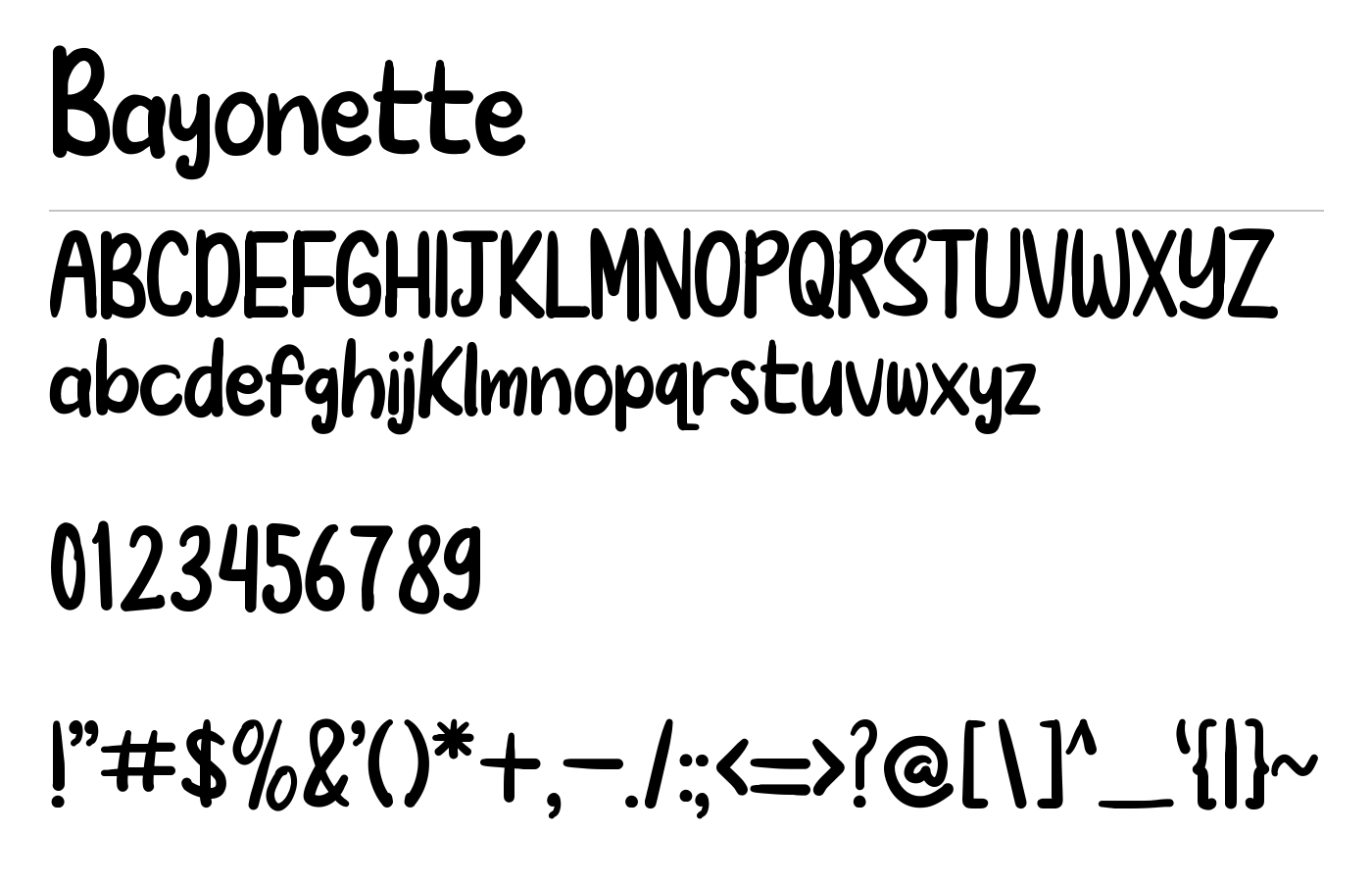
Bayonette is a playful and casual handwritten font with a friendly, approachable vibe. Its rounded, slightly irregular letterforms and medium weight give it a warm, informal feel that works well for creative projects, children’s content, and branding that seeks a fun, personal touch. This font shines in headlines, logos, and packaging where a quirky, lighthearted style is desired.
Bayonette Font
About Bayonette Font